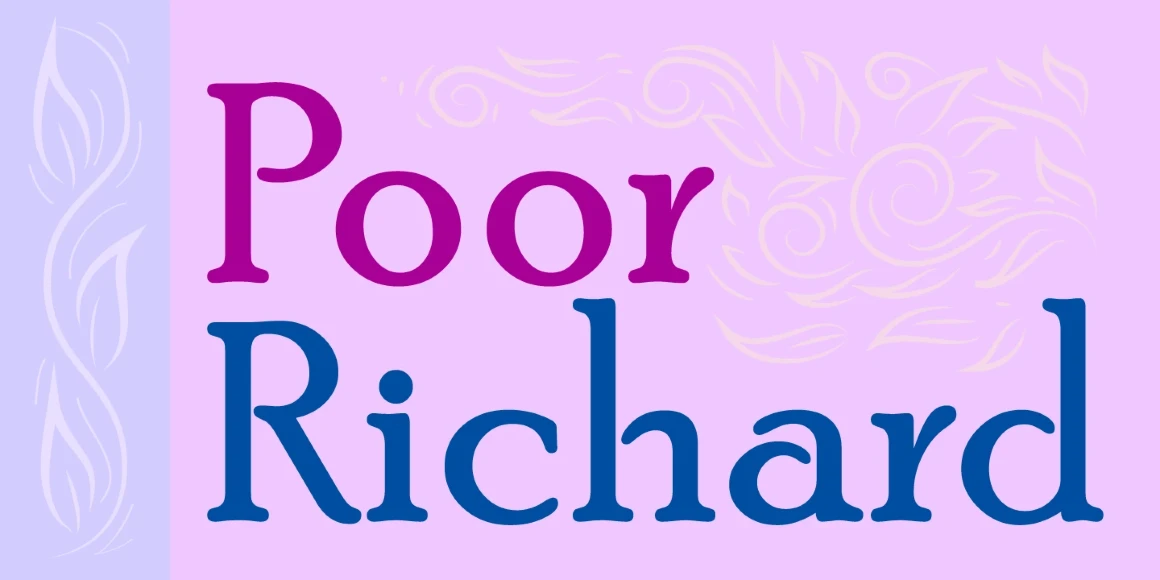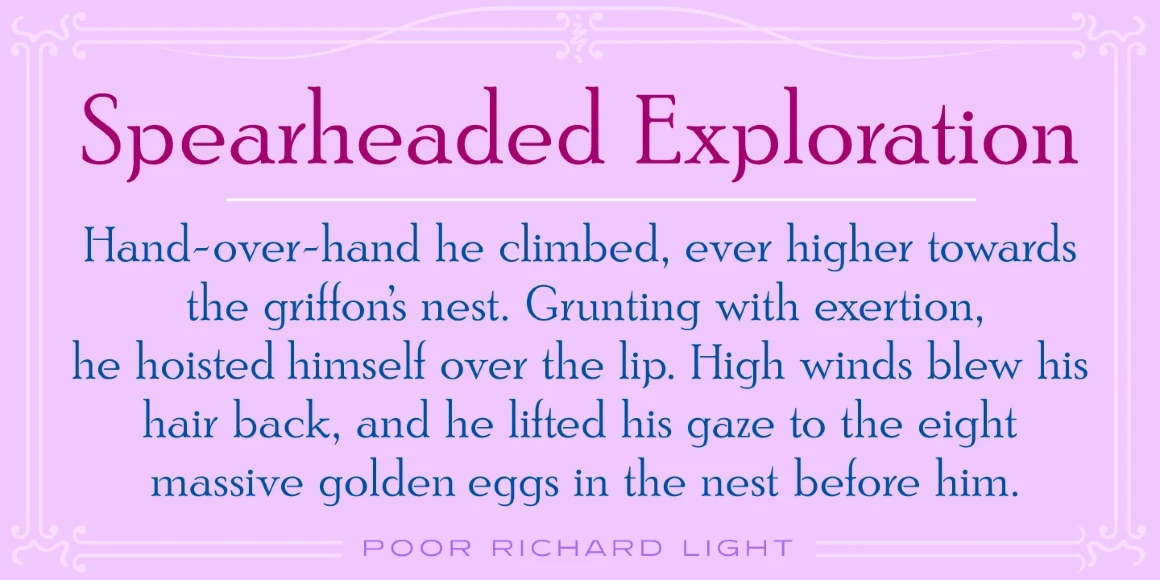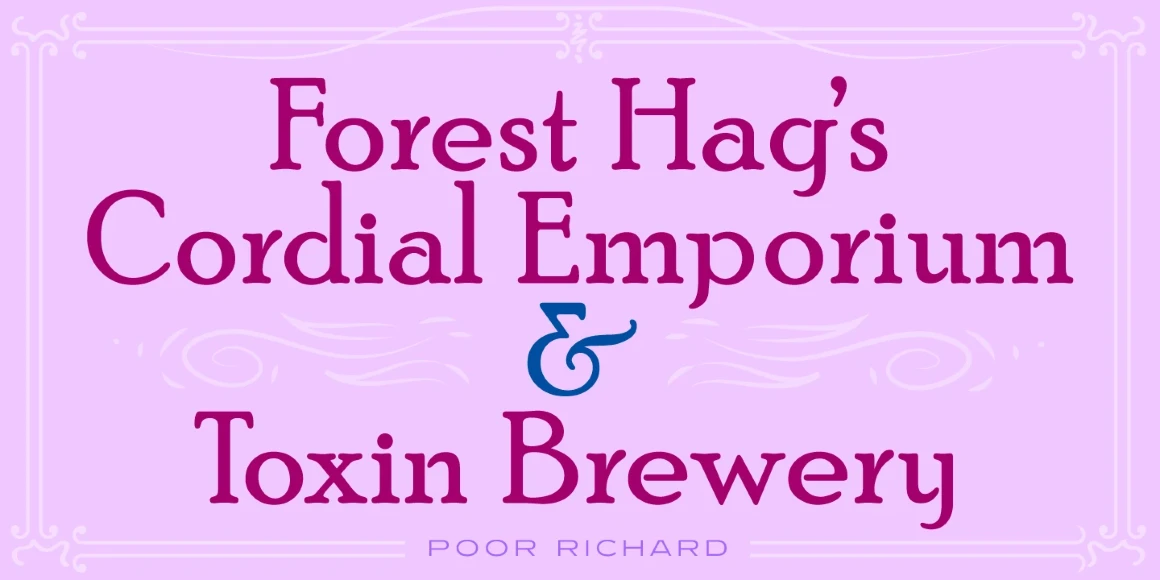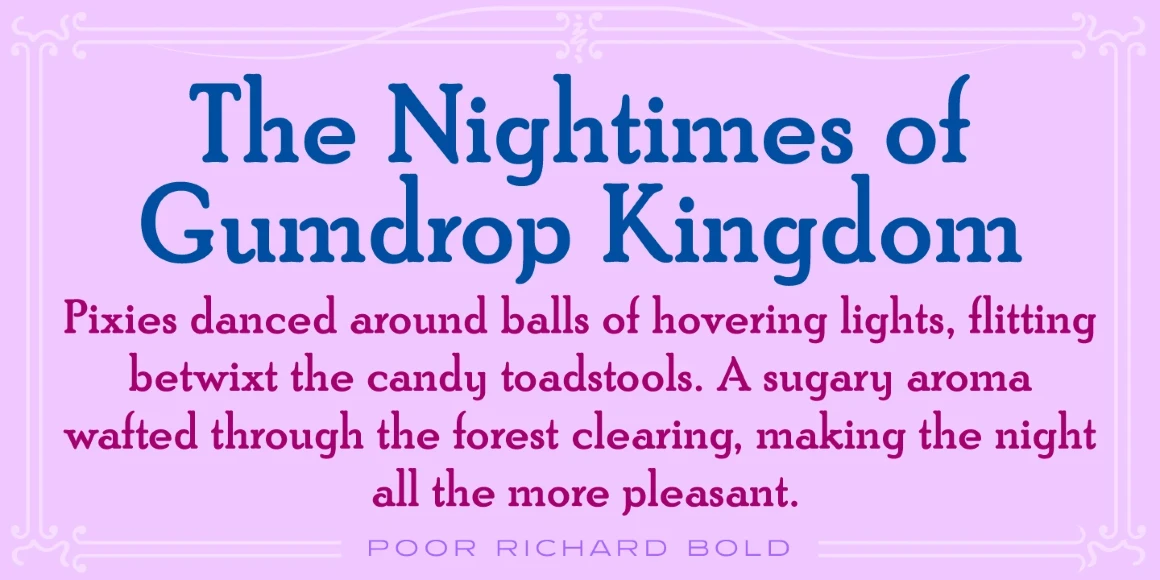
Poor Richard
Poor Richard is a decorative old style serif font family with a small x-height, and is based on the Keystone Type Foundry design circa 1919. The initial digital letterforms were manufactured by Paul Hickson (P&P Hickson), and it was produced by Steve Jackaman (ITF) in 1997. The lowercase ‘g’ from the original design that resembles a figure eight is still available as an alternate character. Poor Richard has a homely, old-fashioned renaissance feel, and showcases a few disconnected figures that are reminiscent of stencil typefaces. It performs admirably at all sizes.